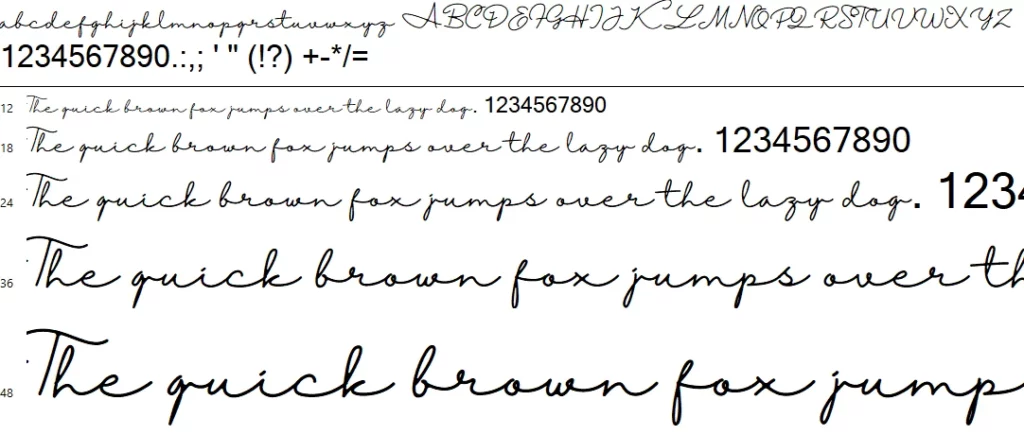
Halimun is a stylish handwriting script font. Rian Rahardi designed this font in 2018 and manufactured by Creatype Studio Co. Halimun font has 64 No. of Characters. With 114 glyph and Italic pattern, this font looks elegant, natural, stylish, and perfect for any awesome projects that need handwriting taste. For its signature style, Tomatoes font and Halimun font looked similar.
Halimun Font View
| Name | Halimun Font |
| Style | Handwriting, Script |
| Author | Rian Rahardi, Creatype Studio Co |
What type of font is Halimun?
Ans: Halimun is a handwriting script font with the regular bold font style.